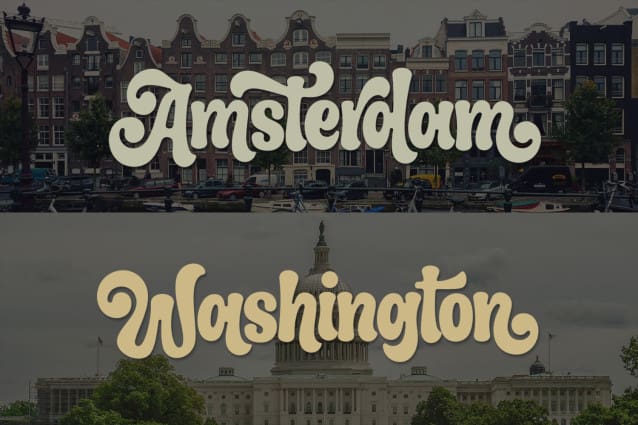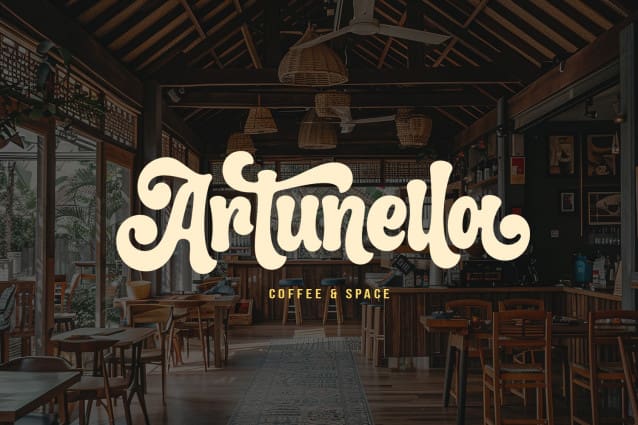
Artunella Retro Font
Artunella Retro Font is a cool vintage style display font. Use it to add a special retro touch to any design idea! Can be used for logos, branding, invitations, stationery, wedding designs, social media posts and more!